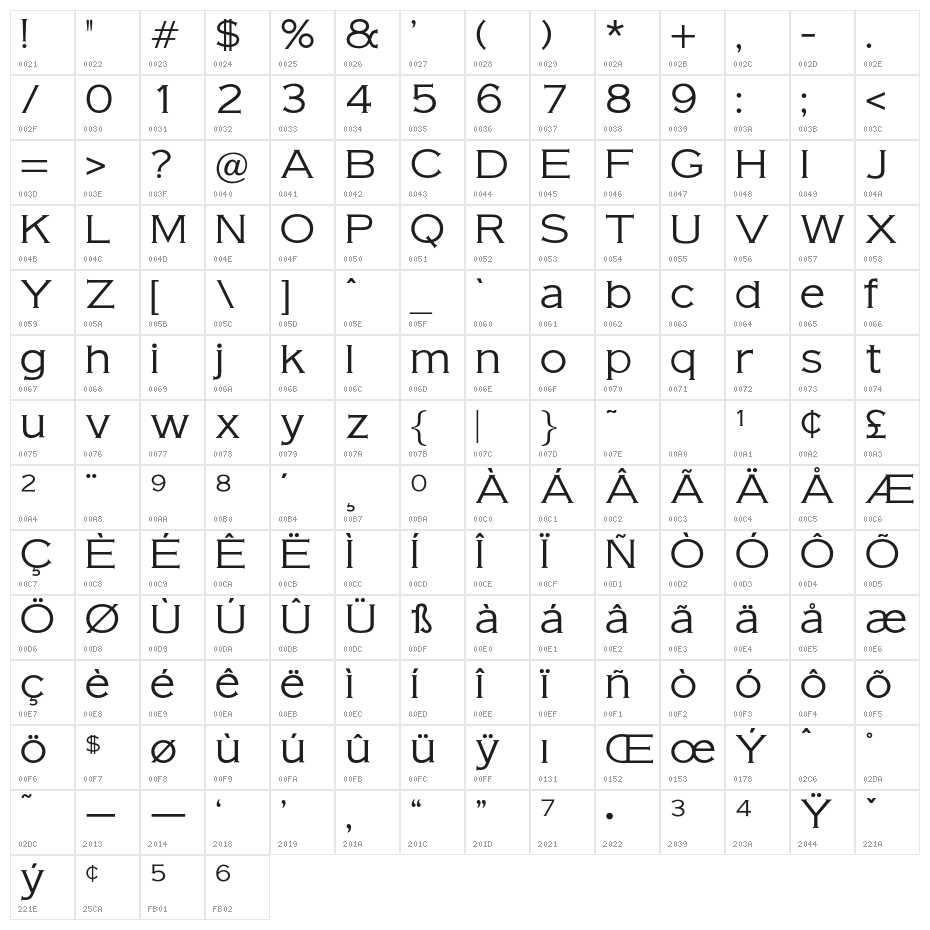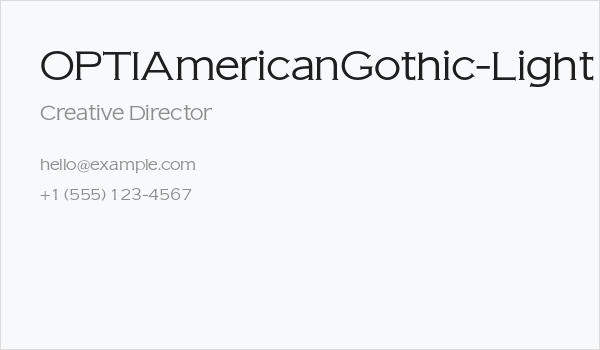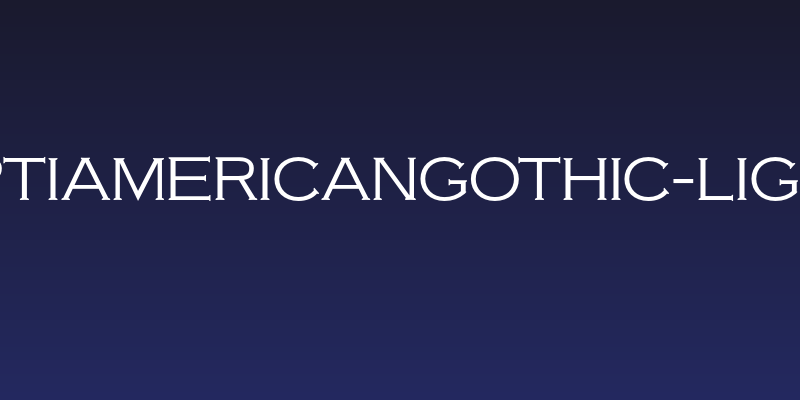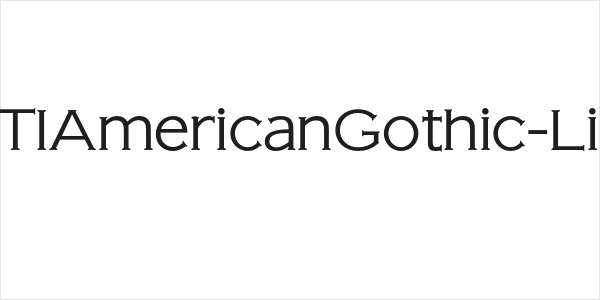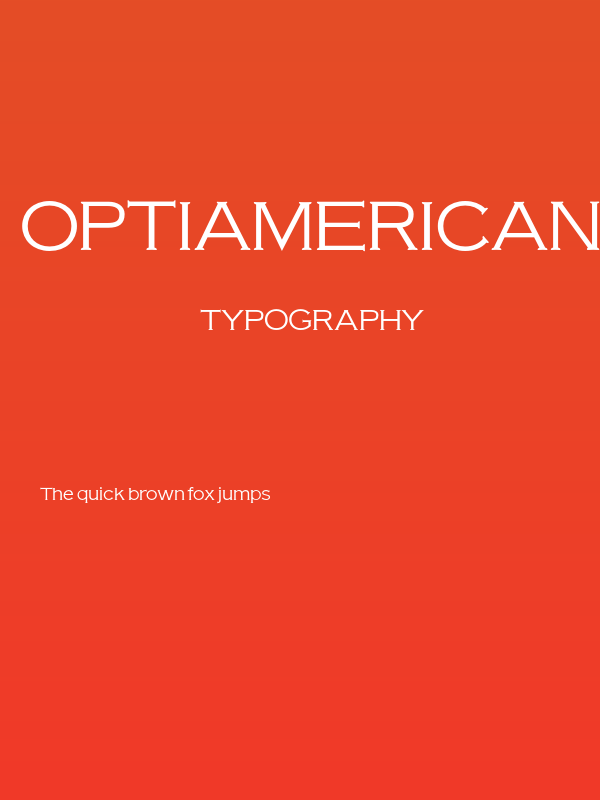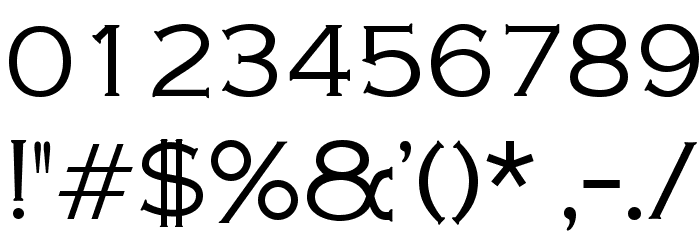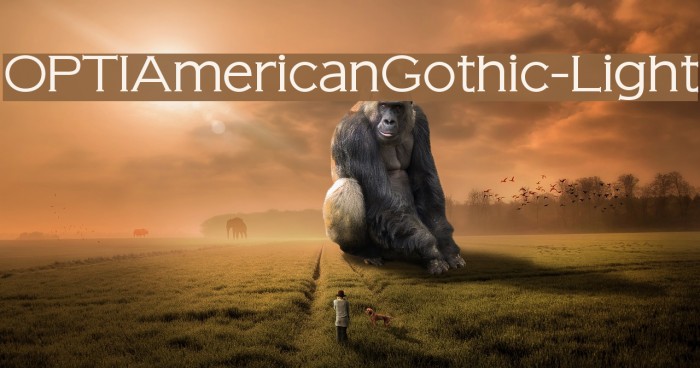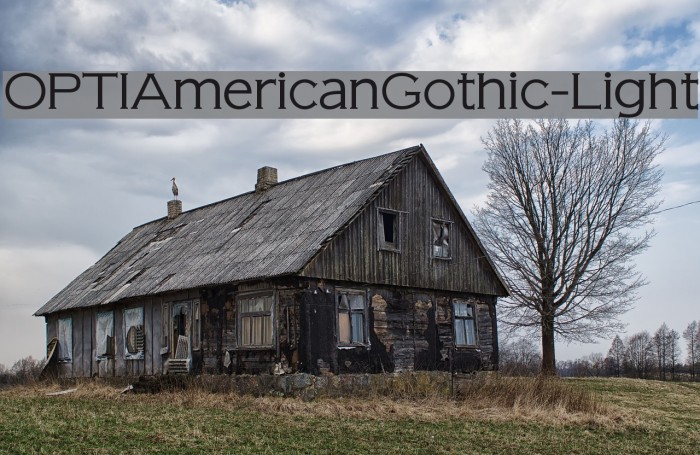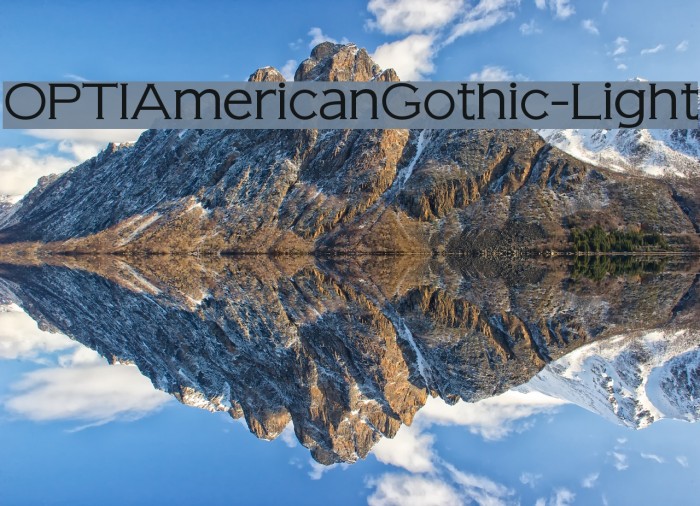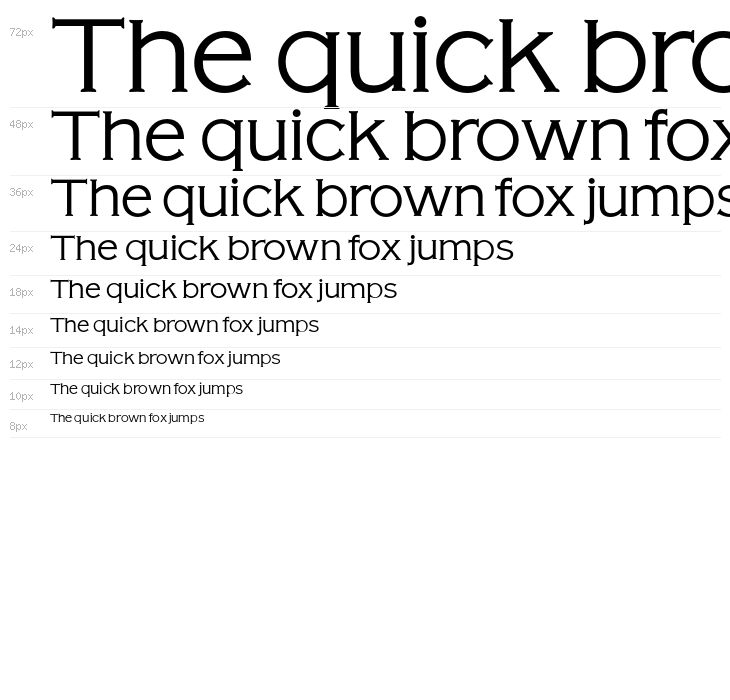
OPTIAmericanGothic-Light Font
OPTIAmericanGothic-Light Description
This typeface features a clean and modern design with a geometric structure. The characters are well-balanced, with consistent stroke widths that provide a harmonious appearance. The uppercase letters are bold and commanding, while the lowercase letters maintain a friendly and approachable feel. The numerals are clear and easy to read, making them suitable for various applications. Special characters are distinct and integrate seamlessly with the rest of the font. The overall design is versatile, making it suitable for both digital and print media.